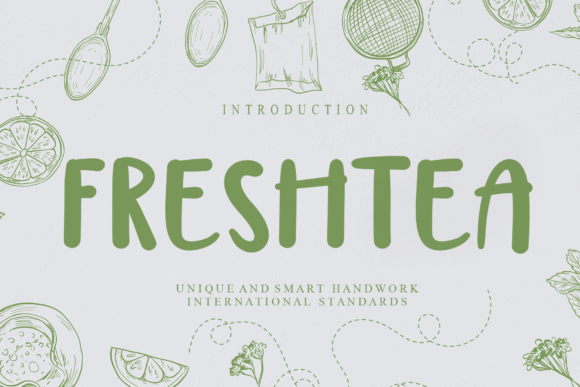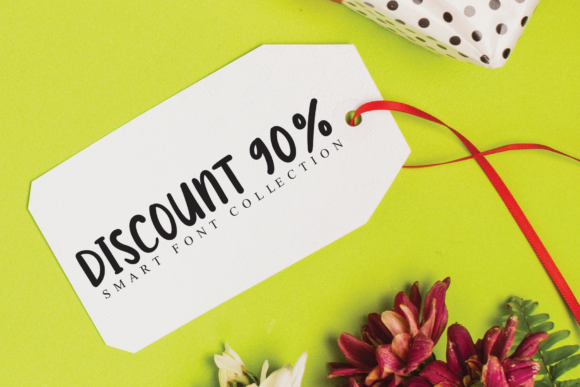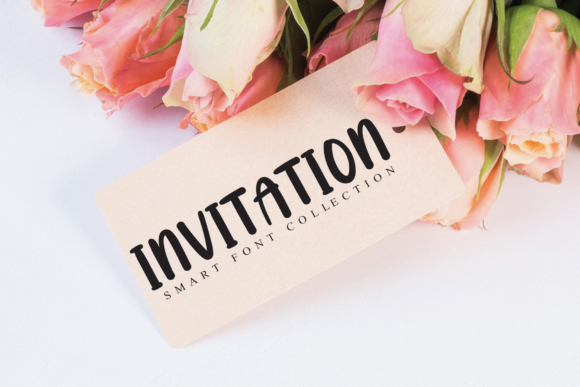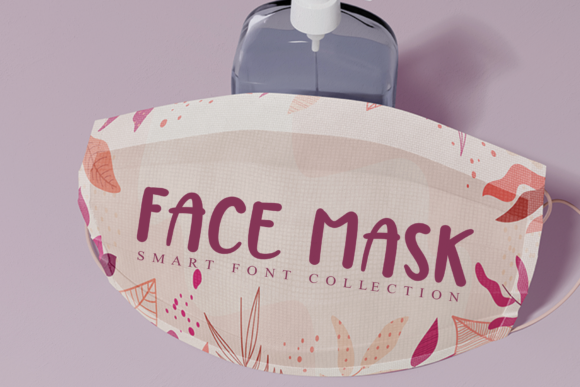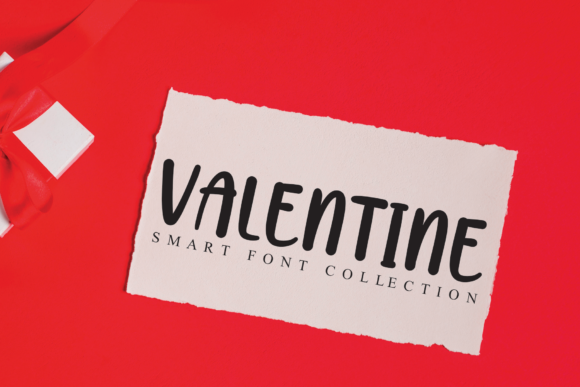
Freshtea Font
About Freshtea Font
Freshtea is a simple and fun script font, described by an elegant touch, perfect for your favorite projects. Fall in love with its incredibly distinct and timeless style and use it to create spectacular designs!